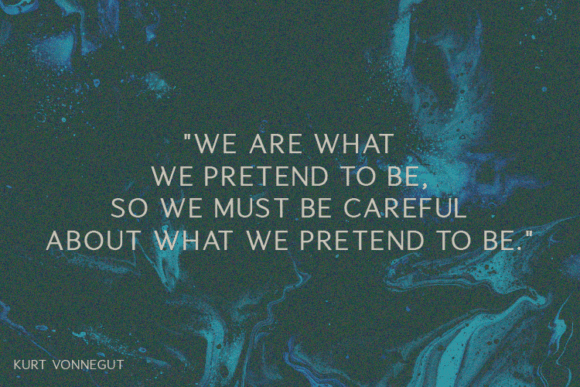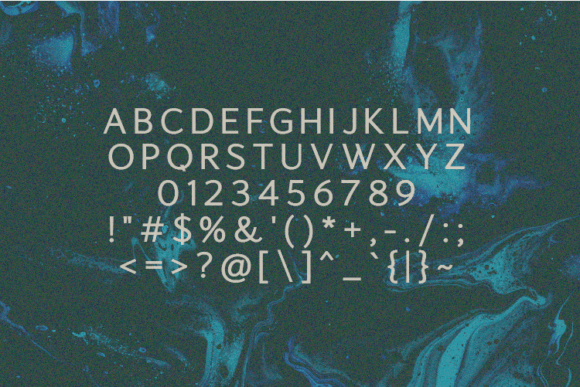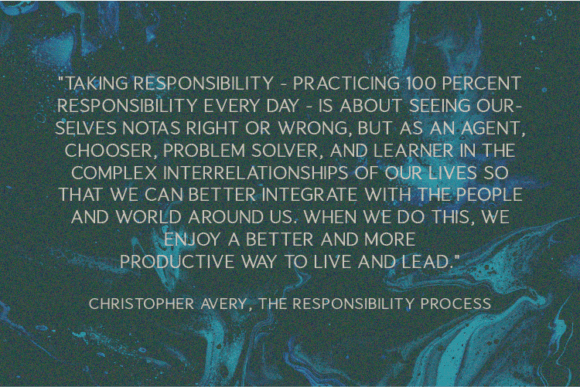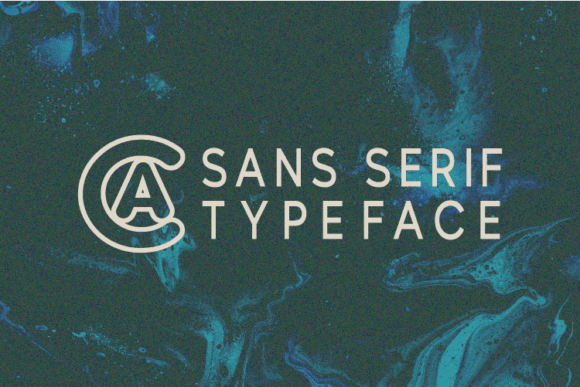
Have you ever stared at a blank page, struggling to find the perfect font to match your vision? You’re not alone. As designers, we’ve all been there – pouring over font libraries, searching for that elusive combination of style and sophistication. And then, like a breath of fresh air, you stumble upon Habbit Theory Font. This modern, classy sans serif typeface is the perfect solution for your next logo, wedding invitation, or advertisement.
With its extreme versatility, Habbit Theory Font is the ultimate go-to font for designers looking to add a touch of elegance to their projects. Whether you’re working on a high-end magazine, a luxury brand, or a personal project, this font is sure to impress. Its clean lines, refined curves, and sophisticated feel make it the perfect choice for anyone looking to elevate their design game.
Habbit Theory Font Key Features
- Font Family: Habbit Theory is a sans-serif font family designed for modern and clean typography.
- Character Set: Supports a wide range of languages, including Latin, Cyrillic, Greek, and more, making it suitable for global applications.
- Font Sizes: Offers a range of font sizes, from 8pt to 72pt, catering to various design requirements.
- Resolution: Designed to be scalable and legible at various resolutions, including screen resolutions (72 dpi) and print resolutions (300 dpi).
- Unique Characteristics: Habbit Theory features a distinctive rounded edge and subtle geometric shapes, giving it a friendly and approachable feel.
- Font Styles: Available in multiple font styles, including Regular, Light, Medium, Bold, and Extra Bold, allowing for a range of design expressions.
Habbit Theory Font Review
I recently had the chance to work with the Habbit Theory Font, and I must say it’s been a mixed bag for me. Let’s start with what works well ✨.
- The Habbit Theory Font is incredibly versatile, suitable for a wide range of design projects, from logos to magazines.
- The font’s modern and sleek aesthetic gives it a professional touch, making it perfect for corporate or business-related designs.
- The font family is extensive, offering a variety of weights and styles to choose from, allowing designers to get creative with their typography.
However, there are some limitations to consider ⚠️.
- The font can appear a bit cold and sterile if not used carefully, which may not be suitable for all design projects.
- The font’s high x-height can make it difficult to read at smaller sizes, which may lead to readability issues.
- The font family may not be as extensive as some other popular font families, which could limit its use in certain design contexts.
Overall, I would say that the Habbit Theory Font is a solid choice for designers looking for a modern and professional font. However, it’s essential to weigh the pros and consider the specific needs of each design project.
The Habbit Theory font is ideal for use in modern branding, digital products, and marketing materials. It’s also great for creating eye-catching headings and titles. Some common use cases include:
- Digital product design
- Marketing materials and advertising
To get the most out of the Habbit Theory font, try the following:
- Pair it with complementary colors and simple backgrounds
- Use it with bold lines and bright colors
- Experiment with different font sizes and styles
- Combine it with other modern fonts for a unique look